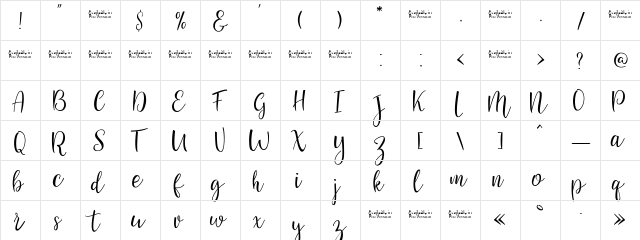
Sanies Script Regular
| Foundry | Khurasan |
| Designer | Khurasan |
Design Context for Sanies Script Typeface
Sanies Script brings a calligraphic fluidity to the page — its connecting strokes and expressive curves give it an unmistakably human quality.